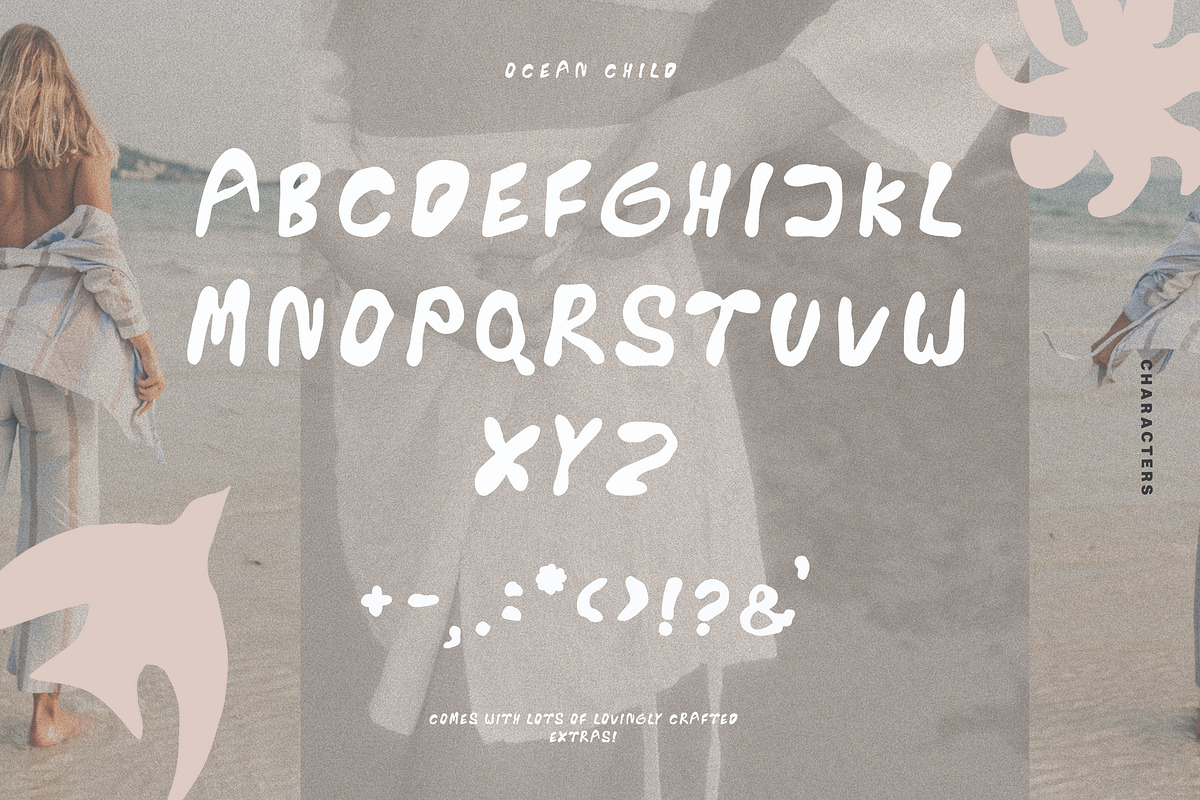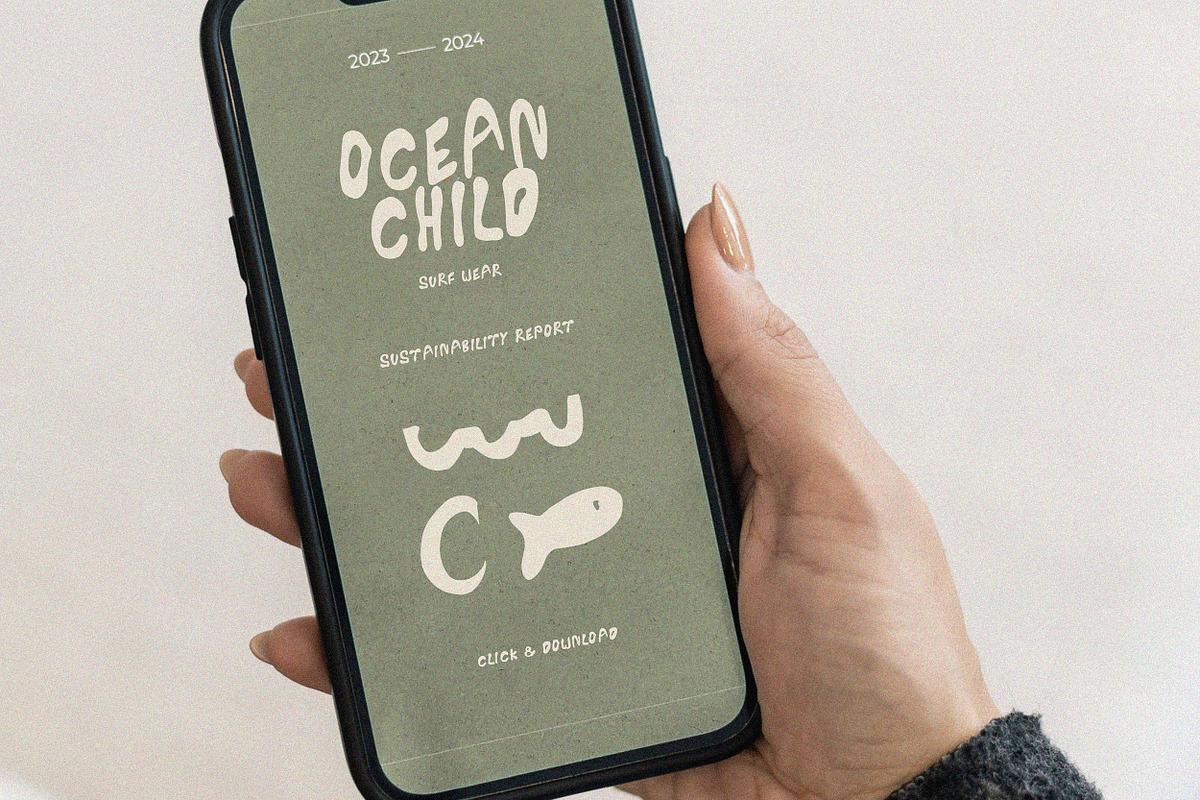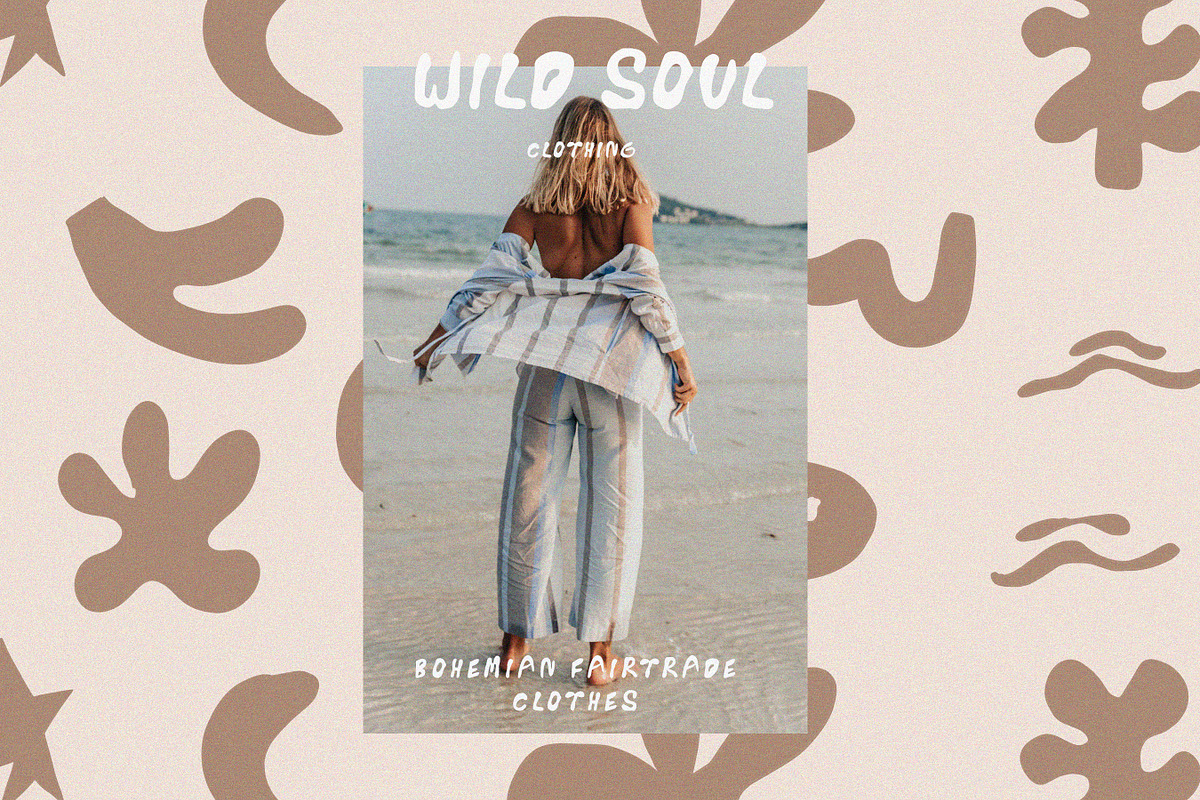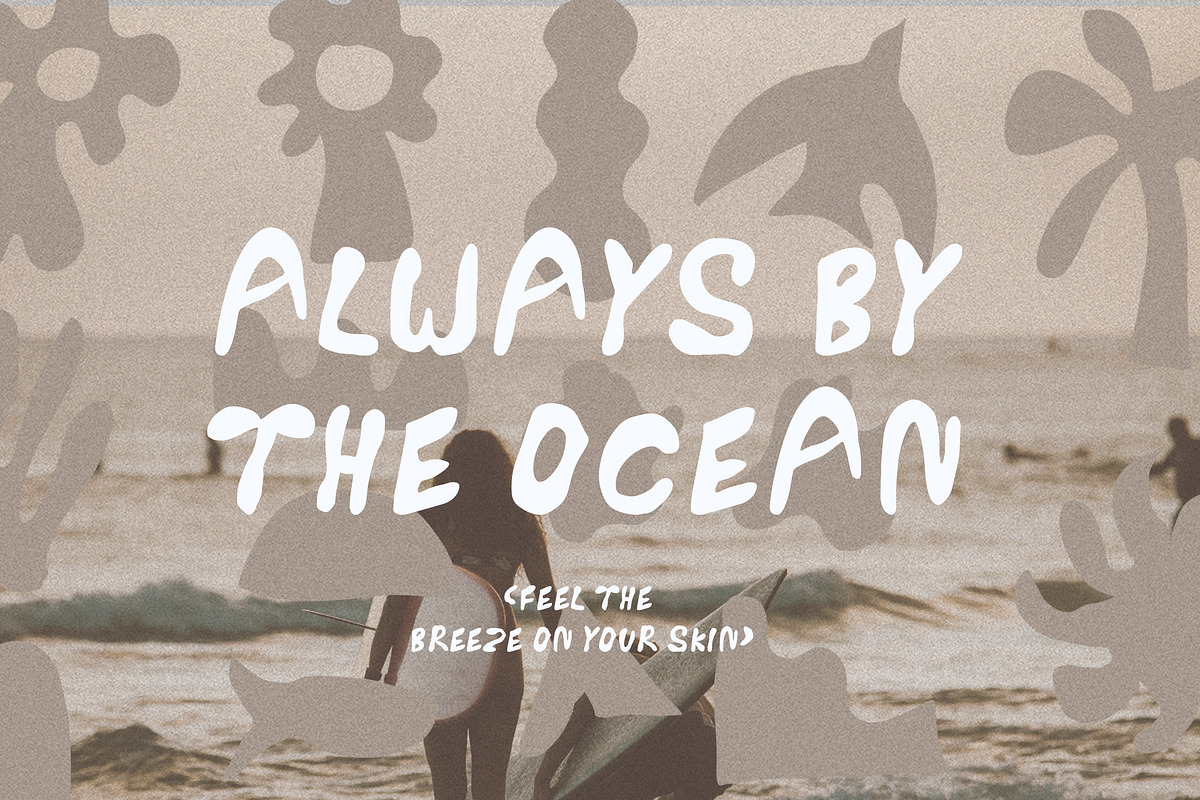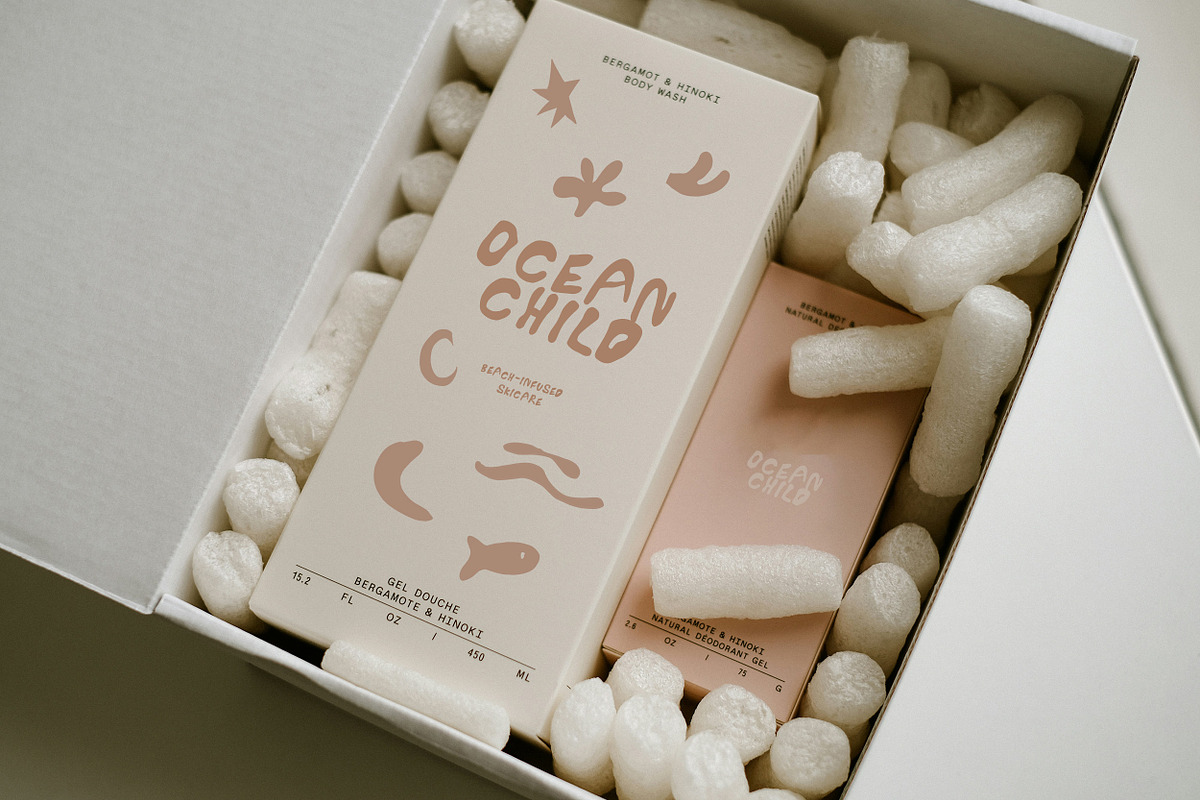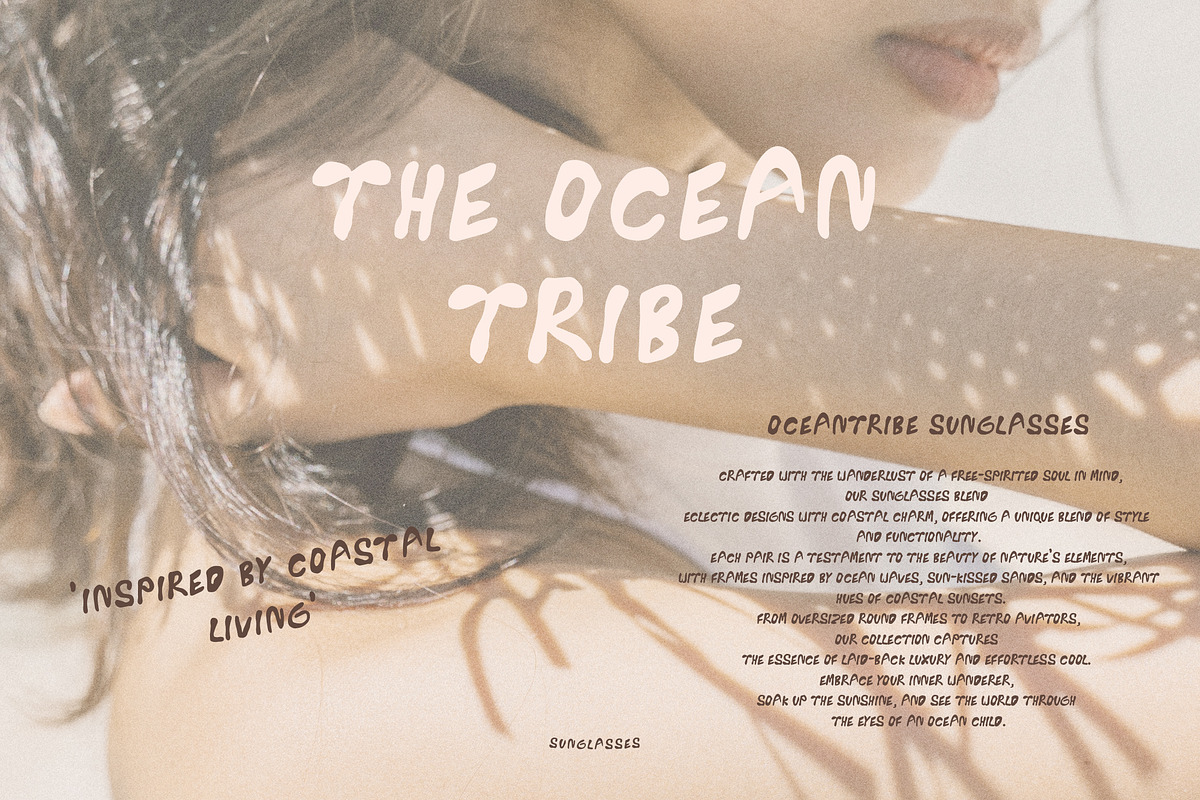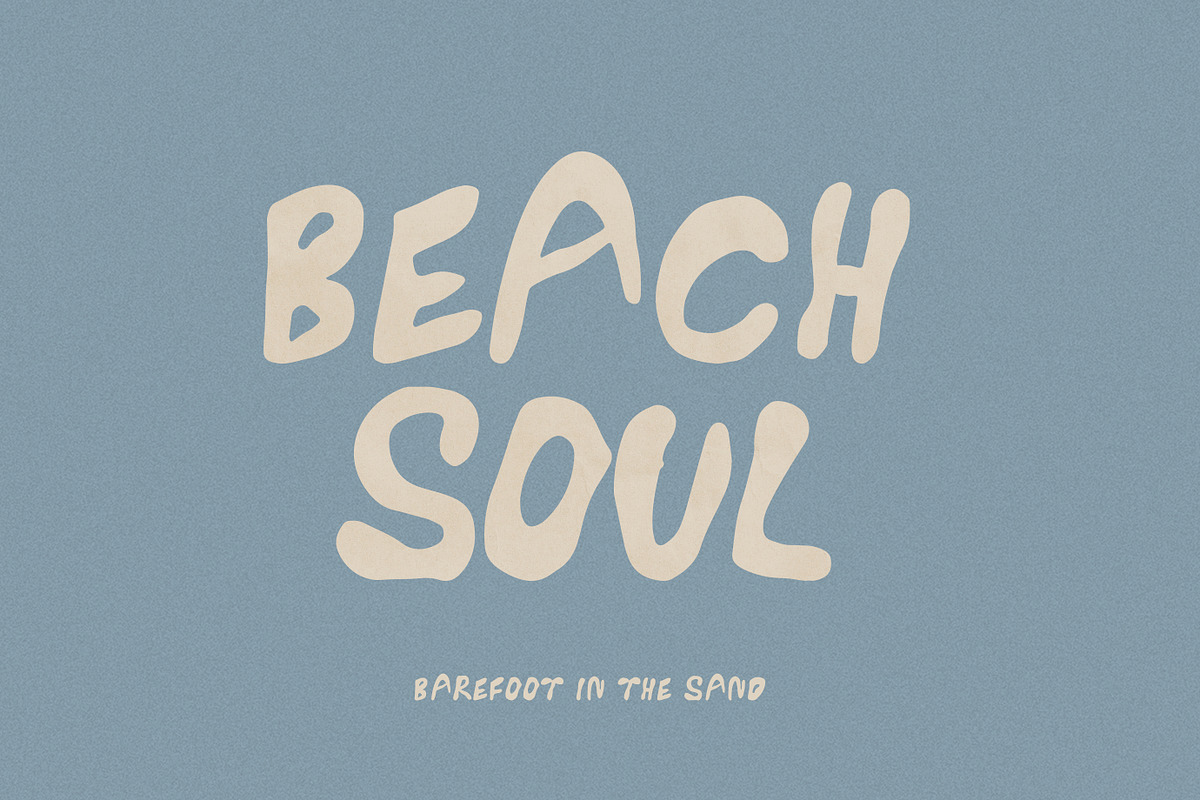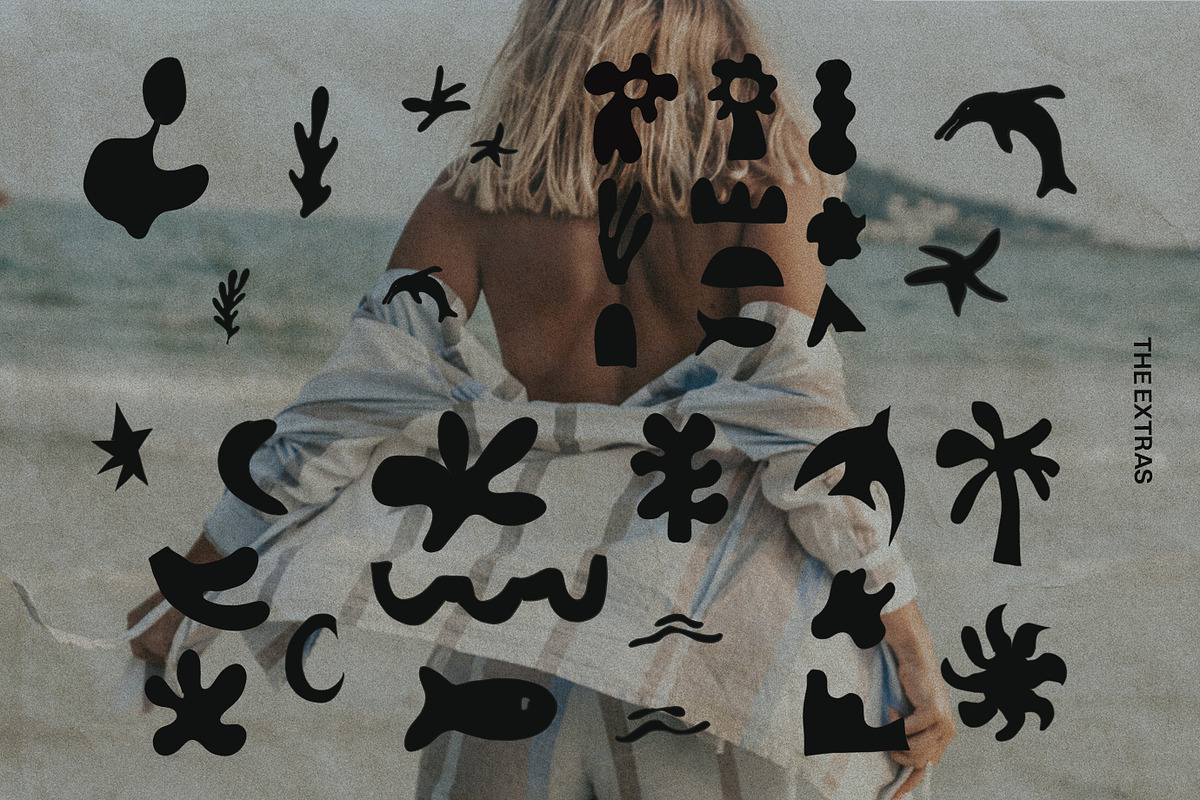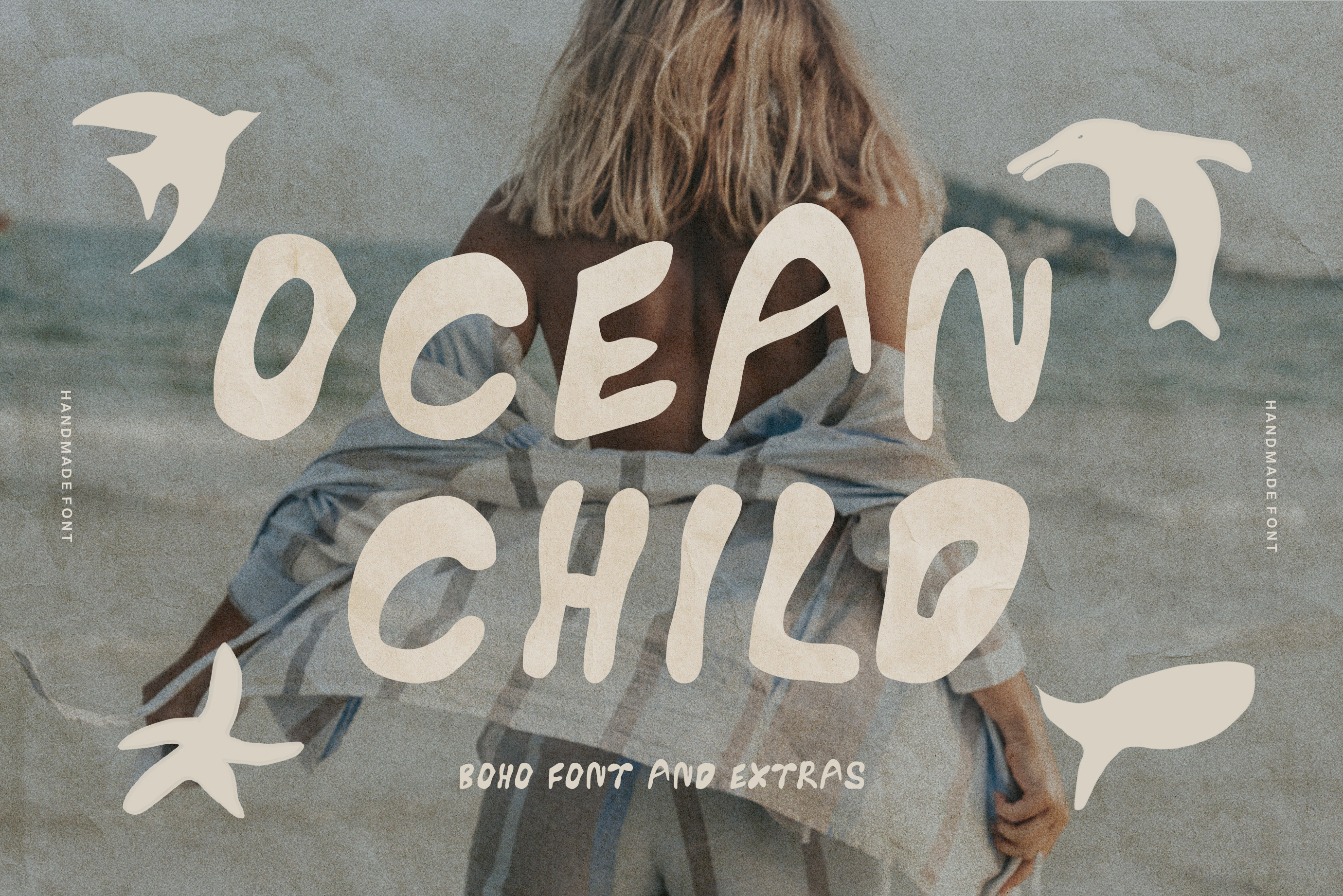
Bold Handmade Font + Boho Icons
Instant boho vibes and that special, custom-made and handcrafted look for your designs: Introducing Ocean Child, a beach infused font full of Summer-y vibes and bohemian aesthetics. The most perfect finish to modern branding and bold logo designs, prints and posters, quotes and social media or boho websites.
Add sunshines, beach vibes and good times to your artwork and designs and create outstanding fair fashion brands, sustainable packaging, kid's clothing and kid's branding, social media posts and more in minutes! This font comes with lots of hand drawn bohemian icons, so you have everything in place to instantly start creating.
Add this bold handmade font to your library and elevate your branding, logo design and artwork today!